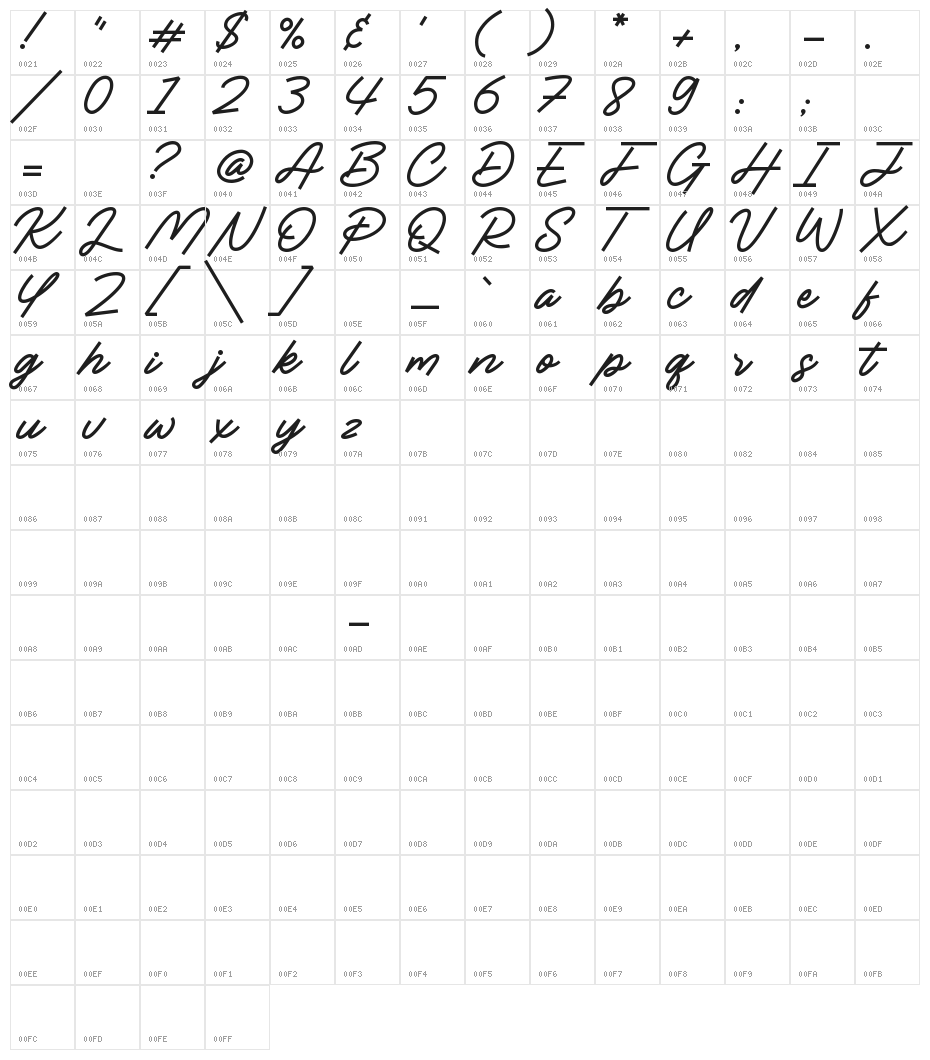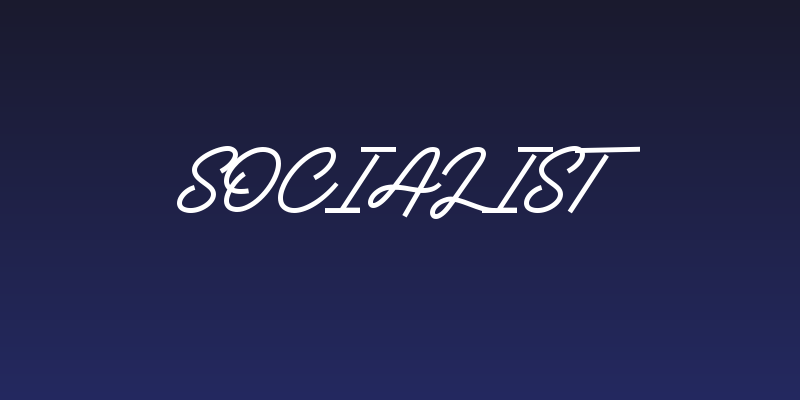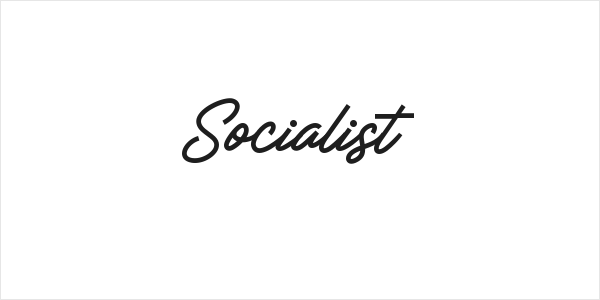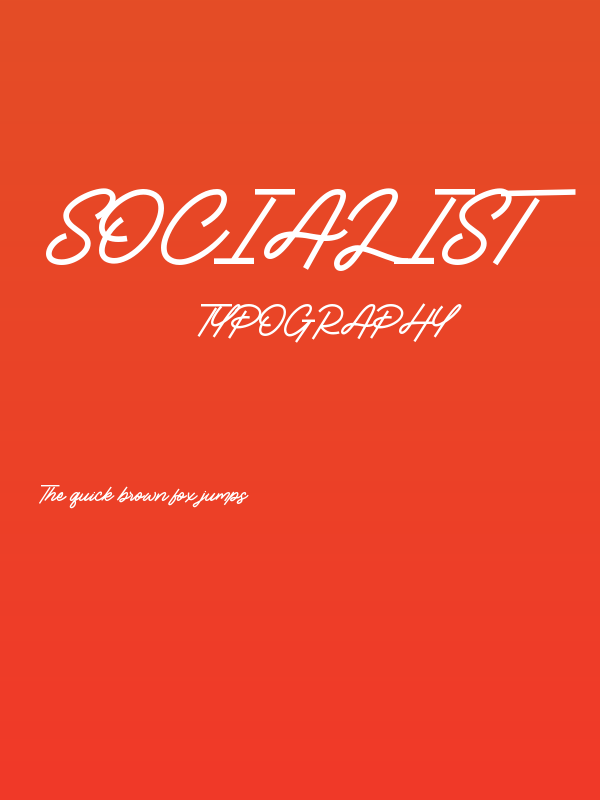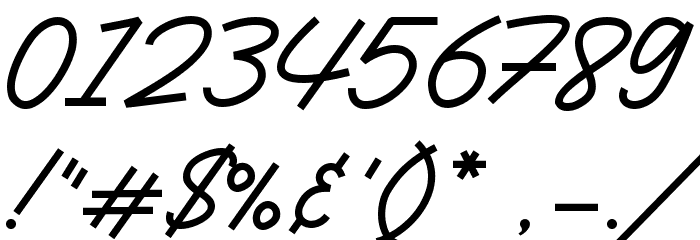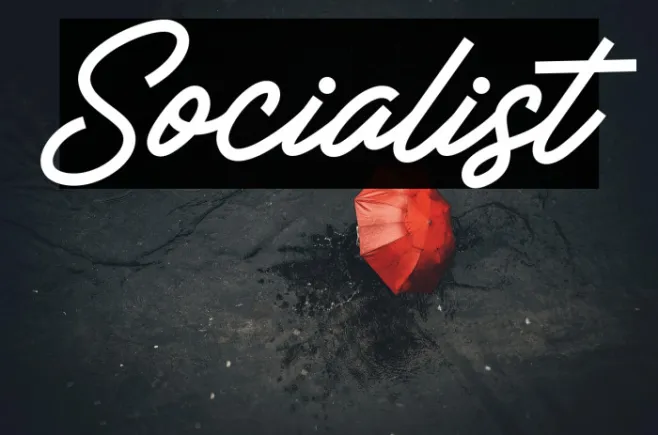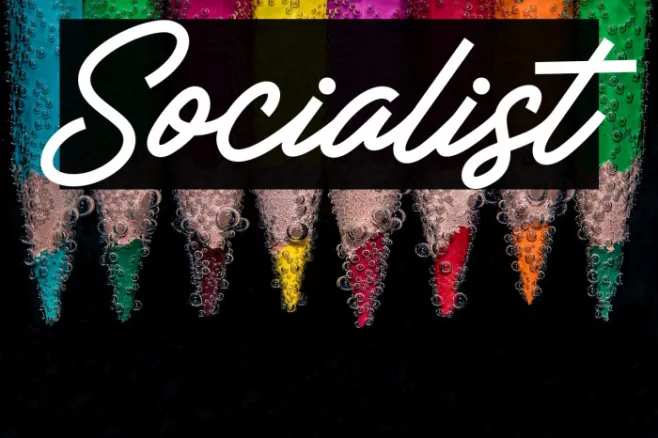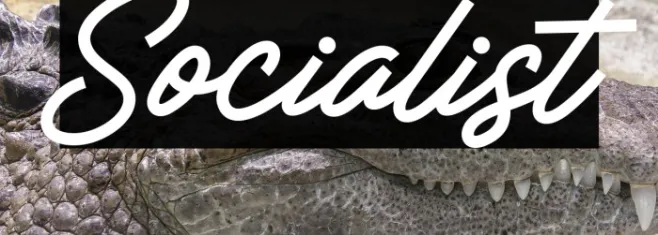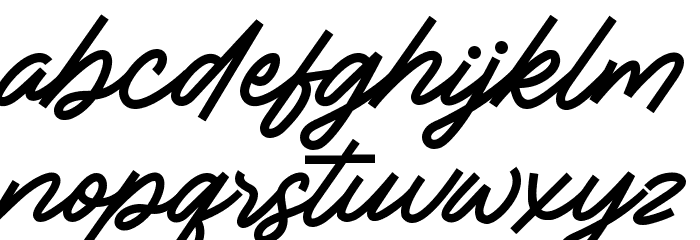
Socialist Font
This font features a dynamic and flowing script style, characterized by its elegant and fluid strokes. The uppercase letters exhibit a consistent slant, giving a sense of motion and sophistication. The lowercase letters maintain a smooth connection, enhancing readability while preserving the cursive aesthetic. Numbers are bold and clear, maintaining the script style without compromising legibility. Special characters are seamlessly integrated, matching the overall design with a touch of flair. The font's design is both stylish and versatile, making it suitable for various creative applications.